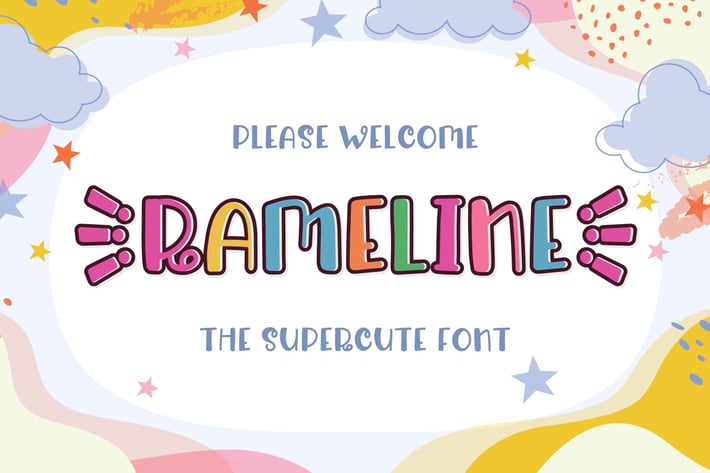
Rameline - Supercute Display Font
Rameline is a Supercute Display font that will make your designs look modern, unique and fun.
It’s perfect for labels, quotes, posters, DIY projects, branding, packaging, greeting cards, websites, photography overlays, signs, window art, scrapbooking, tags and so much more!